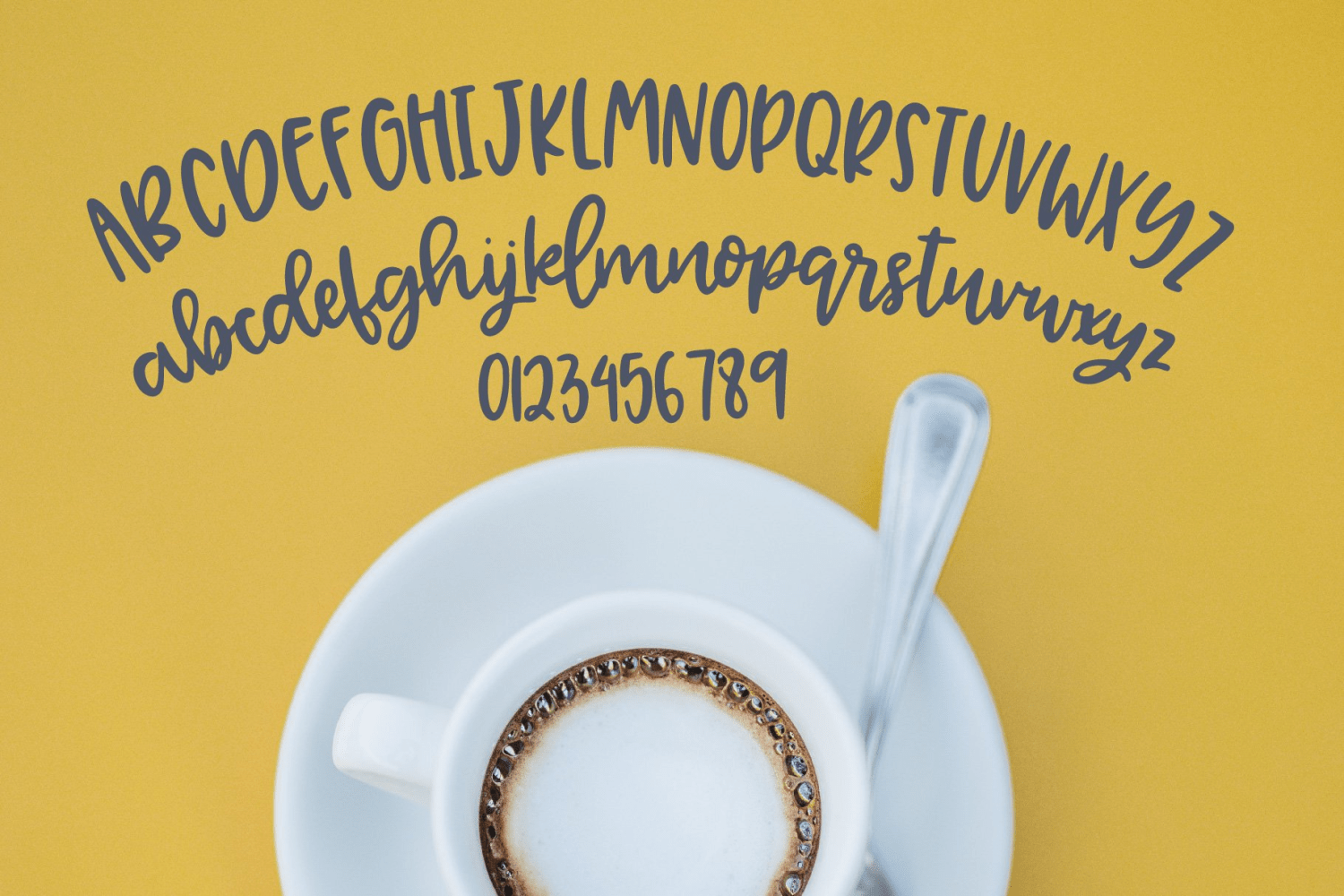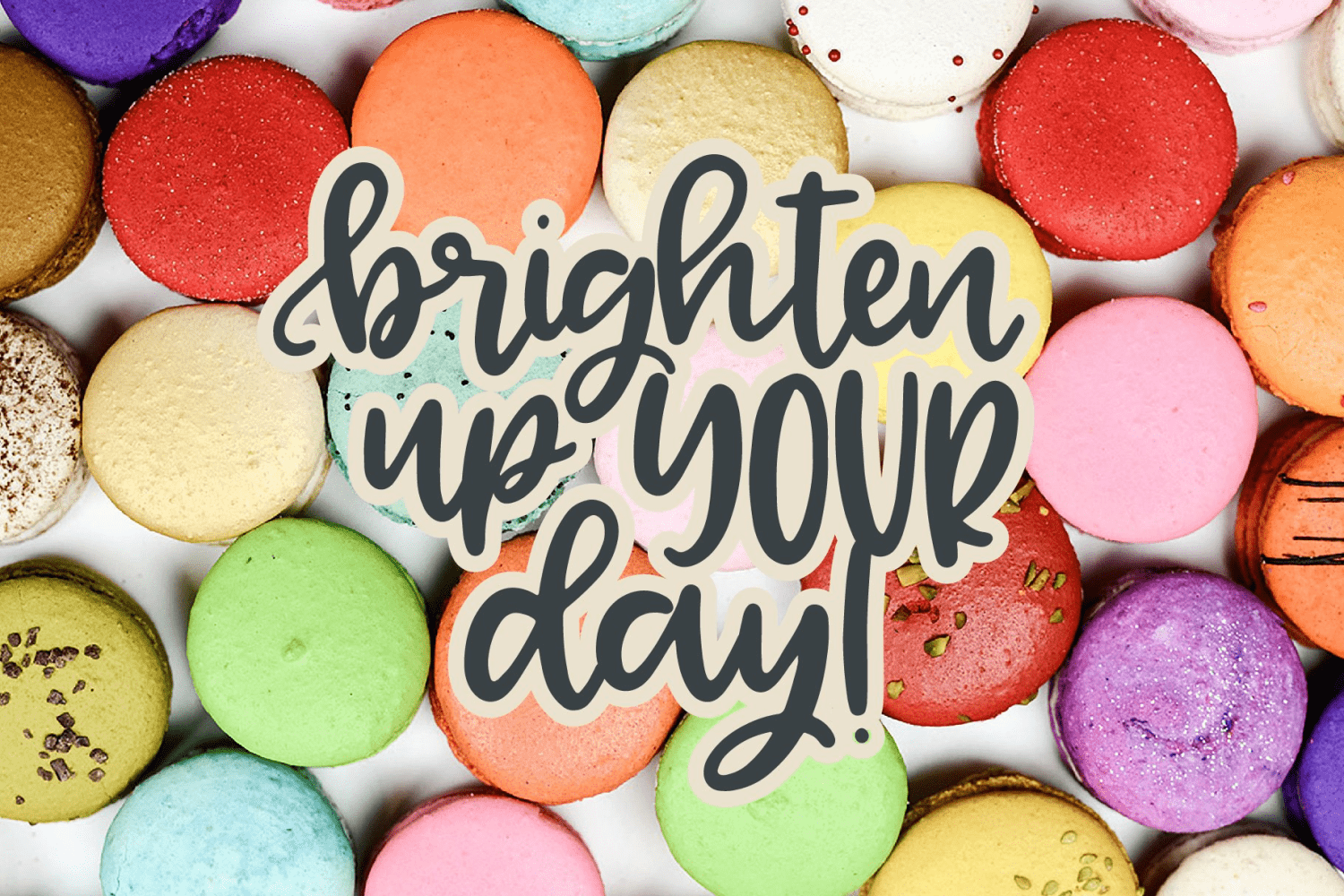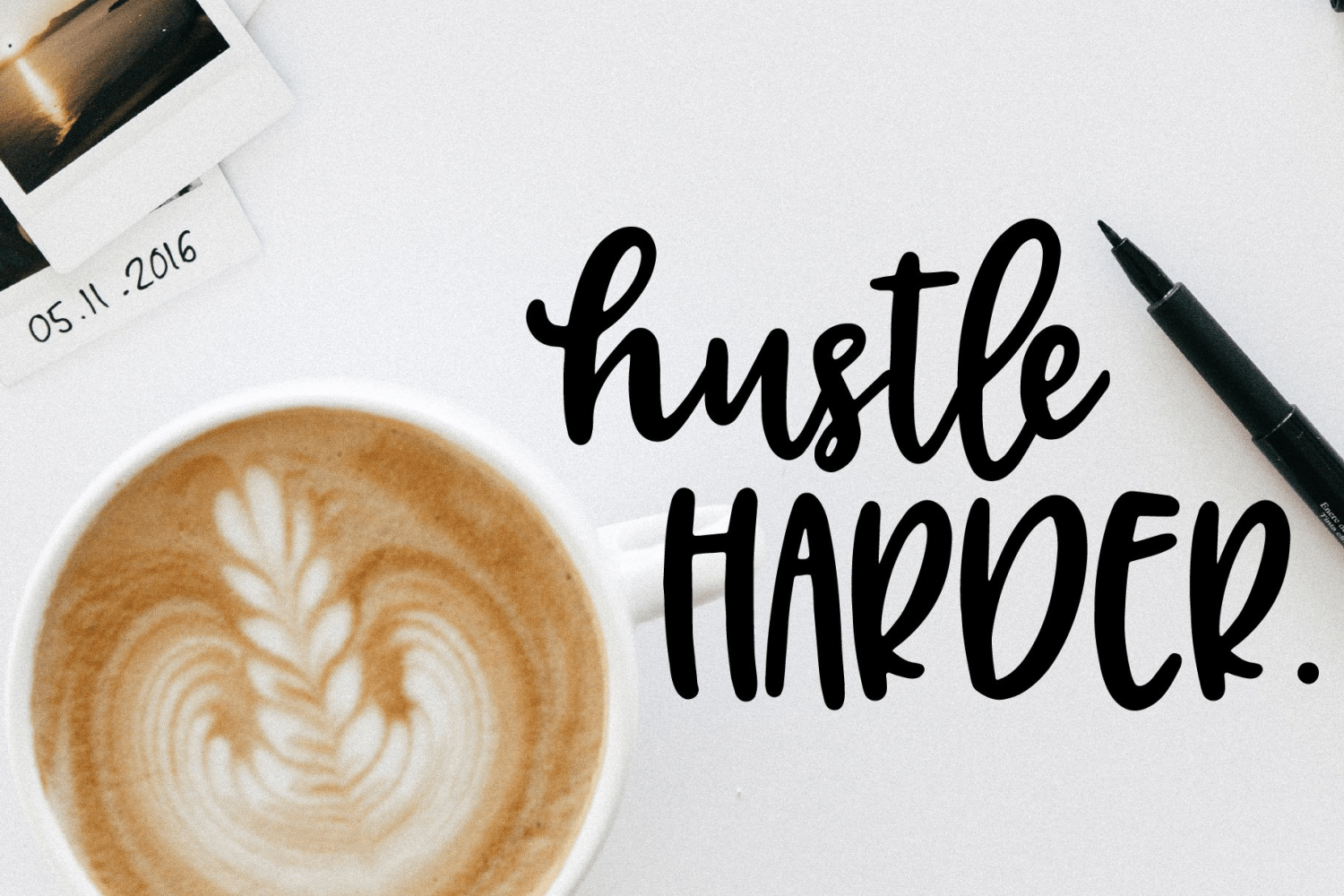
Crema Macchiato : A delicious new script from OTSS! Perfect for crafting, vinyl cutting, branding, and so much more! Includes full alphabet, numbers, punctuation, accented characters and a handful of ligatures!